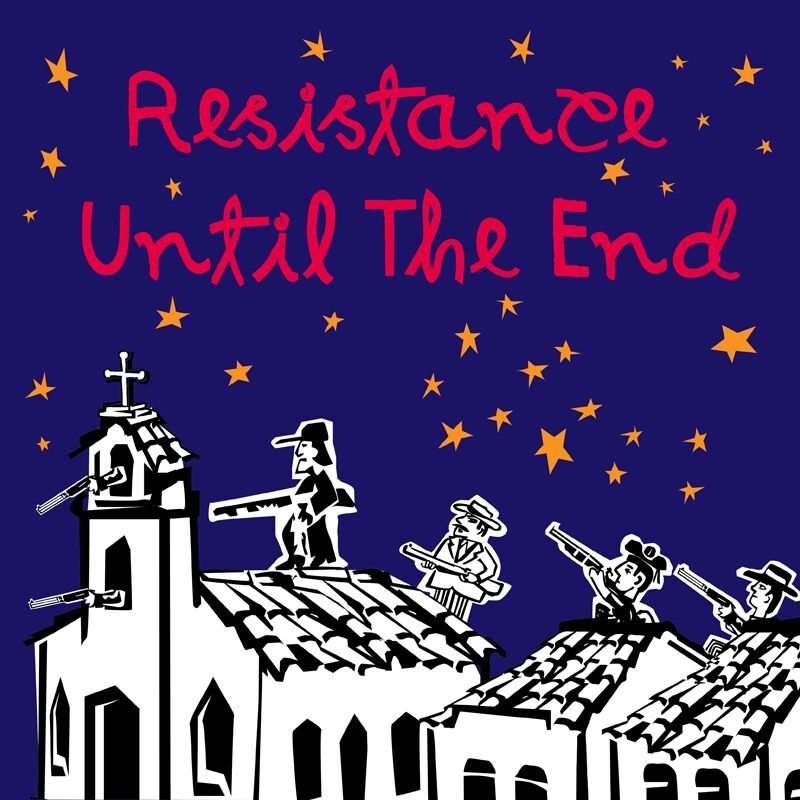
Resistance Until The End Regular
Resistance Until The End font by Galdino Otten Fonts is a free handwritten script typeface. Its wiry, inky strokes swing from tight curls to loose, elastic loops, creating a lively, slightly crooked rhythm that feels scribbled in one breath. The letters lean and sway with a defiant charm—playful, a bit messy, and unmistakably human—so headlines grab attention without looking forced.
Using Resistance Until The End, you get instant personality for posters, zines, album art, streetwear tags, quote graphics, and book covers. The spacing breathes nicely at larger sizes, and this free font shines when paired with a steady grotesk sans for body copy to keep the message clear. Keep tracking modest and give it room to dance; it rewards white space with energy.